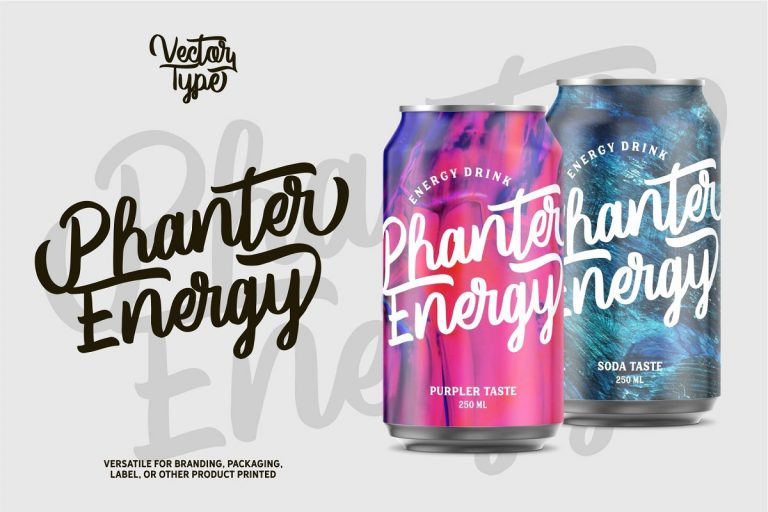
Vector Type Script Font
Vector Type Script Demo Font
Hello buddy! This is a fun calligraphy font. Inspired by Retro style and combination with Hand Lettering style. I hope this can make inspire you from your work. Introducing Vector Type Script Font! In addition, this font is very suitable for design t-shirts, branding projects, wedding designs, social media posts, advertisements, product packaging, product, and logo. designs, labels, photography, watermark, invitation, stationery and any projects that need handwriting taste.